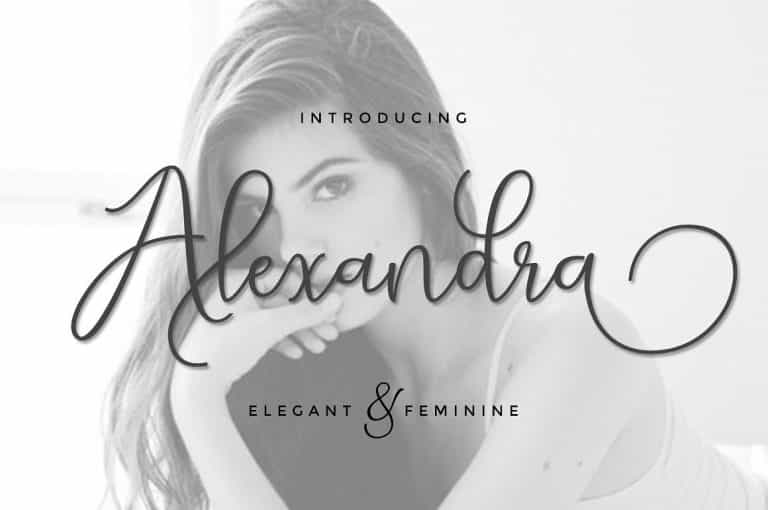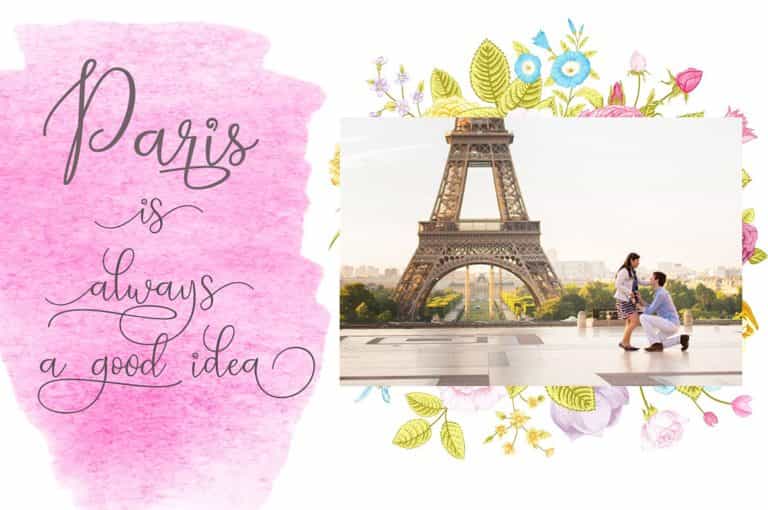
Discover Alexandra Script Font, part of the Calligraphy Handwritten collection—a versatile and unique font perfect for adding a personal touch to your projects. Download it for free and enjoy crafting designs with style, from invitations to social media posts. This font is available exclusively for personal use, giving you the freedom to create without limits. Unlock your creativity with Alexandra Script Font today!
Introducing Alexandra Font. Alexsandra is a stylish modern calligraphy font, perfect for casual design projects. Finally contemporary script style that has made a significant impact on modern communication. For a professional and polished appearance, this mate would be a perfect fits for Branding, logo, fashion stuff, cosmetic, apparel, journal, lookbook, greeting cards a fancy presentation, and magazine. So versatile right?